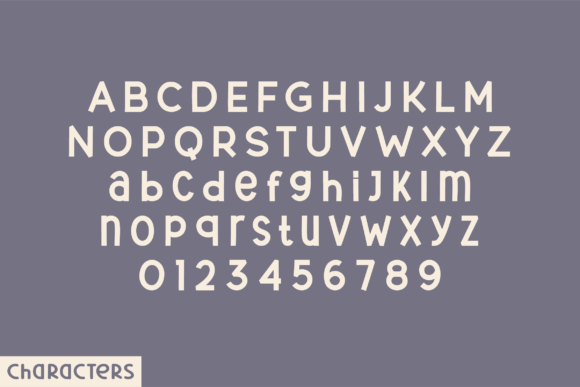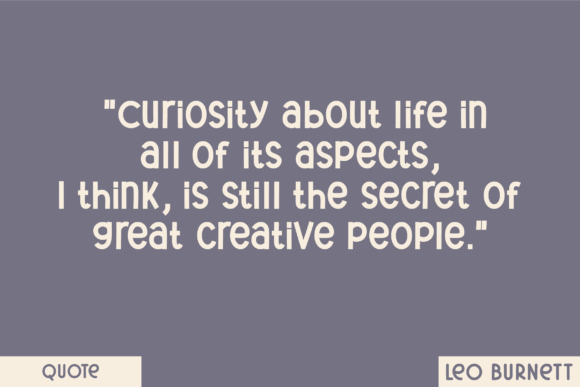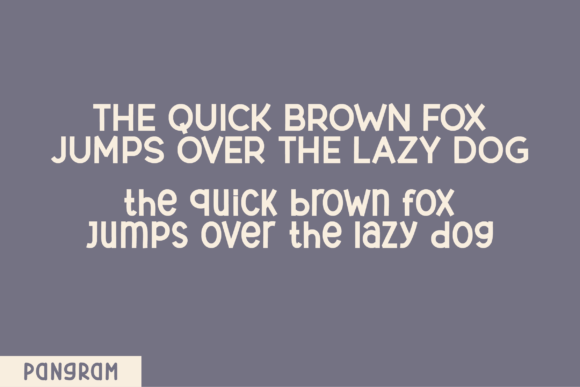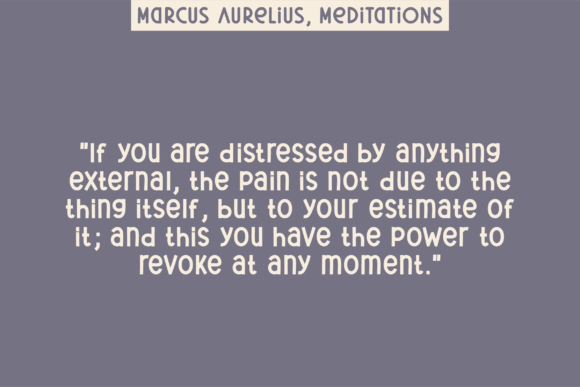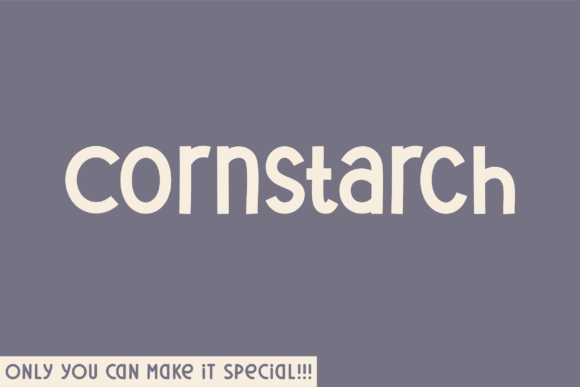
Cornstarch Font: The Unique and Versatile Typeface for Designers and Crafters
In the world of typography, fonts play a crucial role in conveying messages, expressing creativity, and setting the tone for a brand or design. With the numerous font options available, it can be challenging to find a typeface that stands out from the crowd. However, if you’re looking for a font that is both unique and versatile, look no further than Cornstarch Font. In this article, we’ll explore the characteristics, uses, and benefits of Cornstarch Font, making it a must-know for designers and crafters.
What is Cornstarch Font?
Cornstarch Font is a natural sans serif font that has gained popularity among designers and crafters due to its distinctive features. Created without changing a single node in each character’s indentation, Cornstarch Font boasts a one-of-a-kind appearance that sets it apart from other typefaces. This unique characteristic makes it perfect for designers looking to add a touch of personality to their work.
Key Features of Cornstarch Font
So, what makes Cornstarch Font so special? Here are some of its key features:
• Natural and Organic Look: Cornstarch Font has a natural, organic look that makes it perfect for designs that require a personal touch.
• Sans Serif: As a sans serif font, Cornstarch Font is clean, modern, and easy to read.
• Unique Indentation: The font’s unique indentation feature sets it apart from other typefaces, making it a great choice for designers looking for something different.
• Versatile: Cornstarch Font is versatile and can be used for a wide range of design projects, from quotes and notes to tees and product design.
Uses of Cornstarch Font
Cornstarch Font is a versatile typeface that can be used for various design projects, including:
• Quotes and Notes: Add a personal touch to your quotes and notes with Cornstarch Font’s unique and organic look.
• T-Shirts and Apparel: Create eye-catching and stylish designs for t-shirts and other apparel using Cornstarch Font.
• Product Design: Use Cornstarch Font to create visually appealing designs for product packaging, labels, and more.
• Branding and Marketing: Establish a strong brand identity with Cornstarch Font’s distinctive and memorable appearance.
Benefits of Using Cornstarch Font
So, why should designers and crafters choose Cornstarch Font for their projects? Here are some benefits:
• Unique and Memorable: Cornstarch Font’s distinctive appearance makes it easy to create memorable and eye-catching designs.
• Easy to Read: Despite its unique features, Cornstarch Font remains easy to read, making it perfect for body text and captions.
• Versatile: With its wide range of uses, Cornstarch Font is a great addition to any designer’s font library.
• Time-Saving: With Cornstarch Font, designers can create professional-looking designs quickly and efficiently, saving time and effort.
Font Name Cornstarch Font
Author Hanna Bie
In conclusion, Cornstarch Font is a unique and versatile typeface that offers designers and crafters a wide range of creative possibilities. With its natural, organic look, sans serif design, and distinctive indentation feature, Cornstarch Font is perfect for quotes, notes, tees, product design, and more. Whether you’re looking to establish a strong brand identity or create eye-catching designs, Cornstarch Font is a great choice. So, add Cornstarch Font to your font library today and take your designs to the next level!